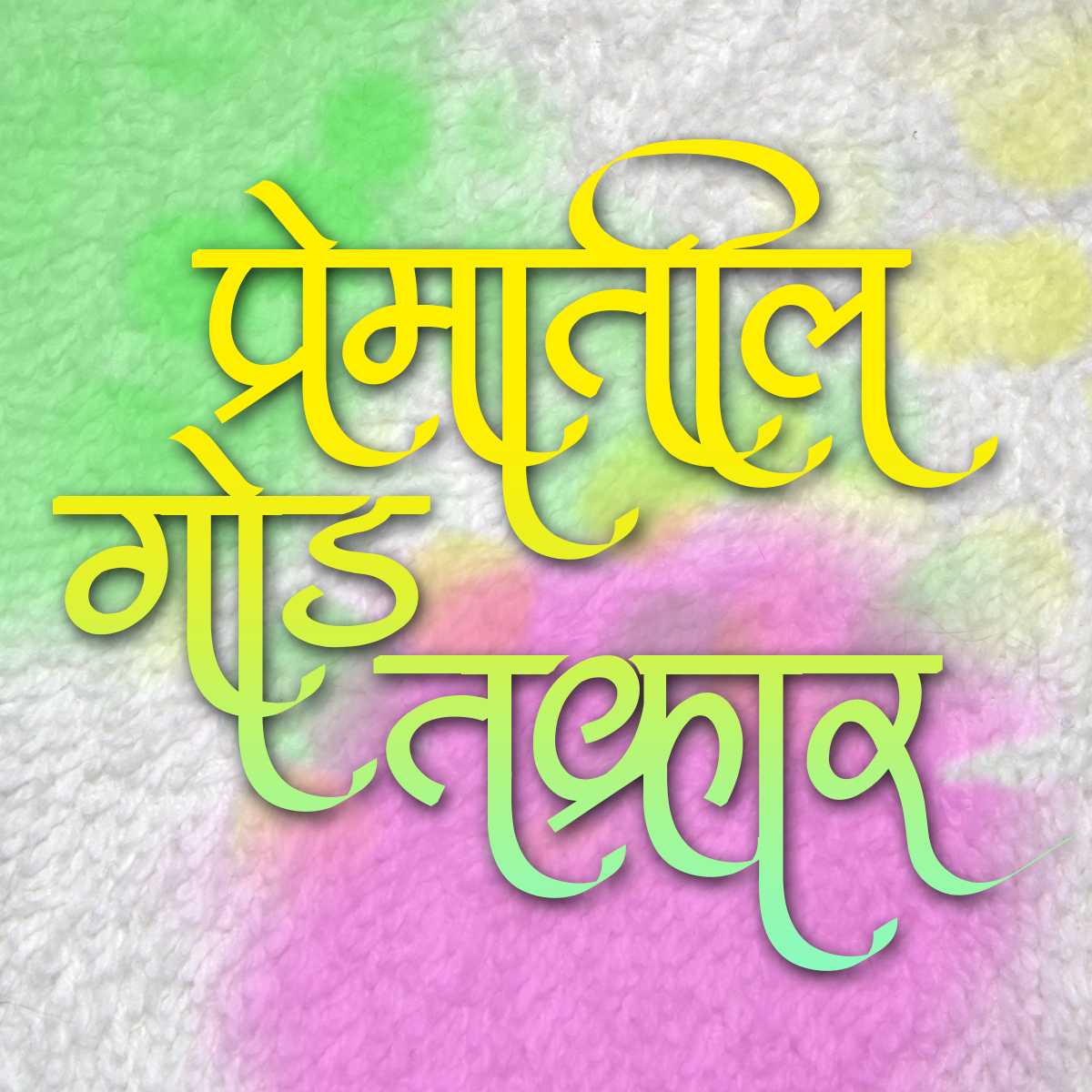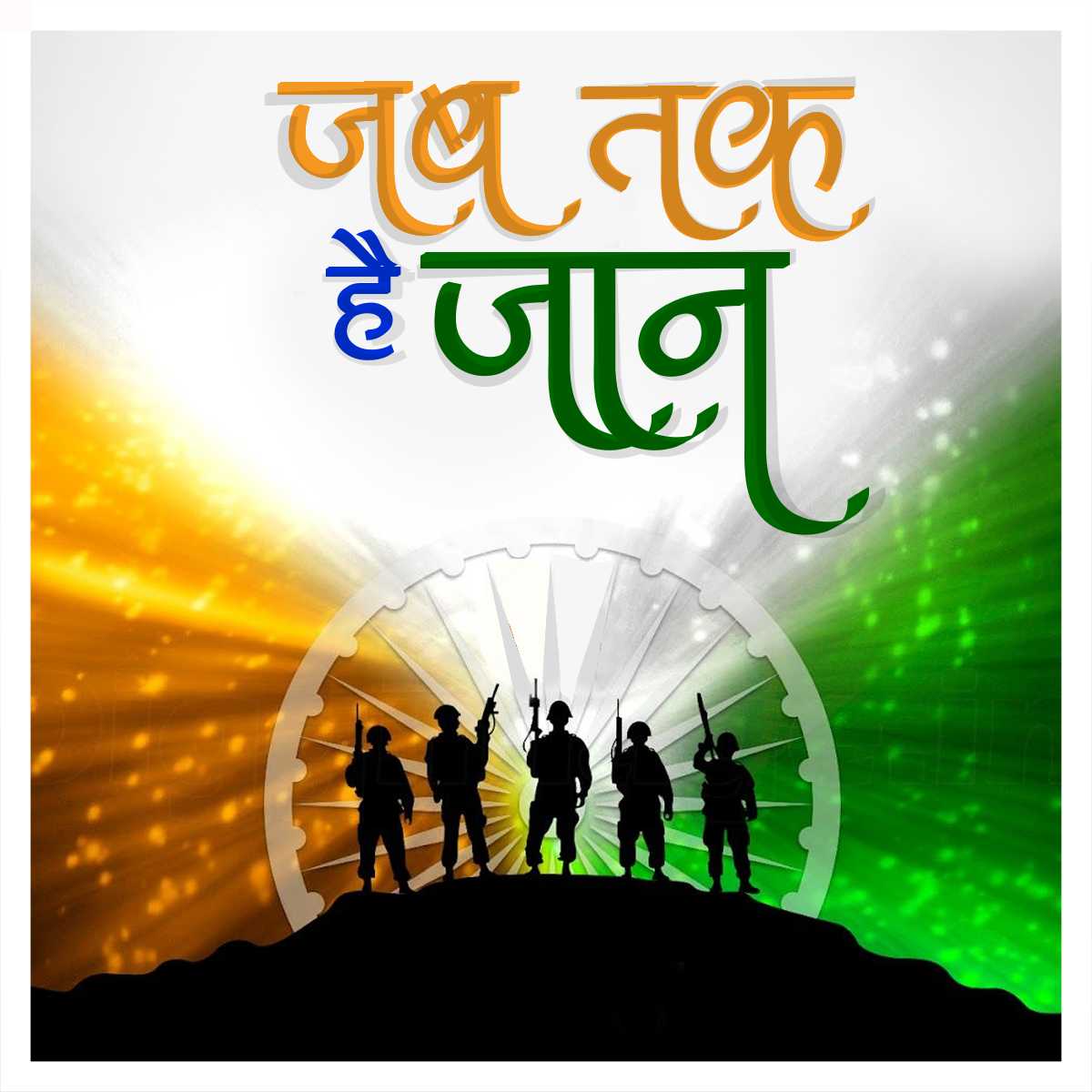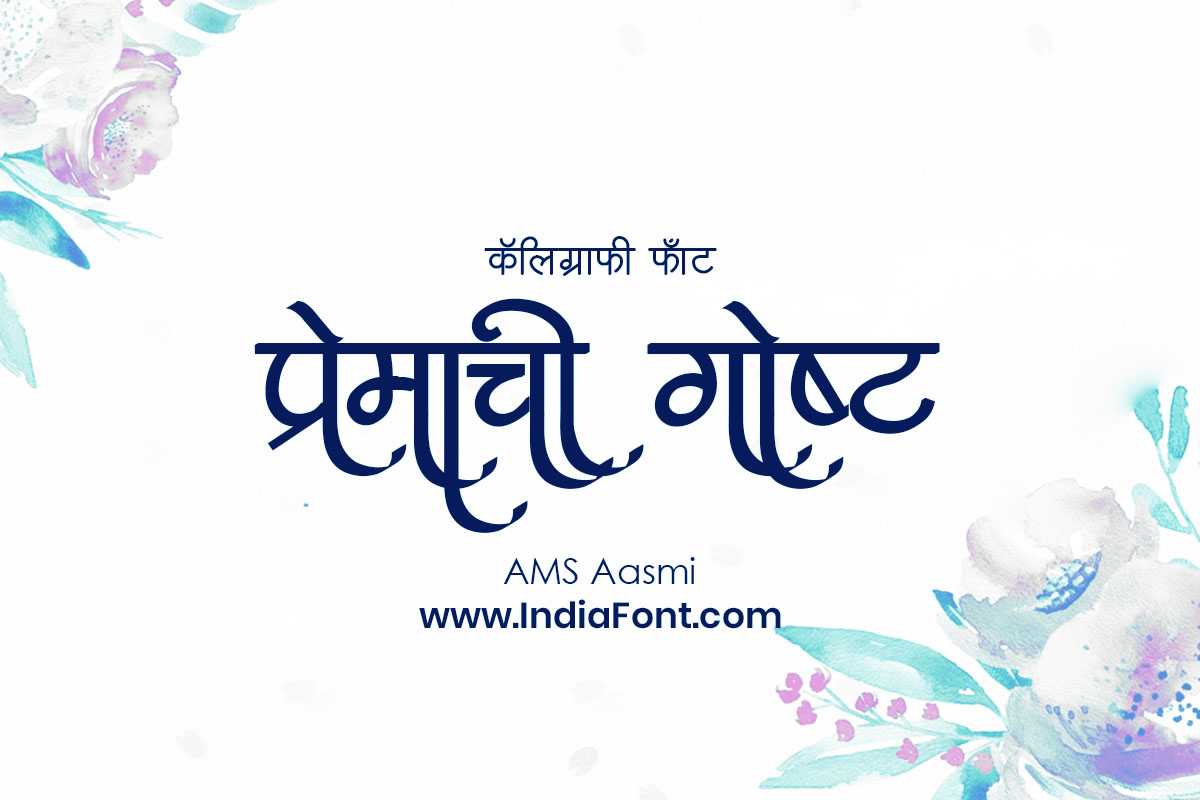
AMS Aasmi
AMS Aasmi is a cherished calligraphy font that has captured the hearts of designers and enthusiasts alike. With its graceful and expressive letterforms, this font brings a touch of artistic beauty to the Hindi and Marathi languages.
About AMS Aasmi Font
AMS Aasmi is a cherished calligraphy font that has captured the hearts of designers and enthusiasts alike. With its graceful and expressive letterforms, this font brings a touch of artistic beauty to the Hindi and Marathi languages. This calligraphy font combines elegance with functionality, making it perfect for various design applications.
AMS Aasmi is a professionally crafted calligraphy typeface that brings clarity and style to your projects. Designed with attention to detail, it supports hindi and marathi characters flawlessly.
Whether you're working on wedding-materials, invitations, logos, or other creative projects, AMS Aasmi delivers consistent performance across both digital and print media. This carefully designed typeface ensures readability and visual appeal in all your design work.
AMS Aasmi excels in various design scenarios. Here are the most suitable applications:
About AMS Aasmi Typography Style
AMS Aasmi is a professionally crafted calligraphy font that exemplifies modern Hindi typography design. This free font is perfect for designers seeking professional branding and logo design projects.
Available in 1 weight and supporting hindi, marathi scripts, AMS Aasmi offers exceptional versatility for both digital and print media. Whether you're working on wedding-materials, invitations, logos, this carefully designed typeface ensures consistent quality and professional results across all your typography projects.